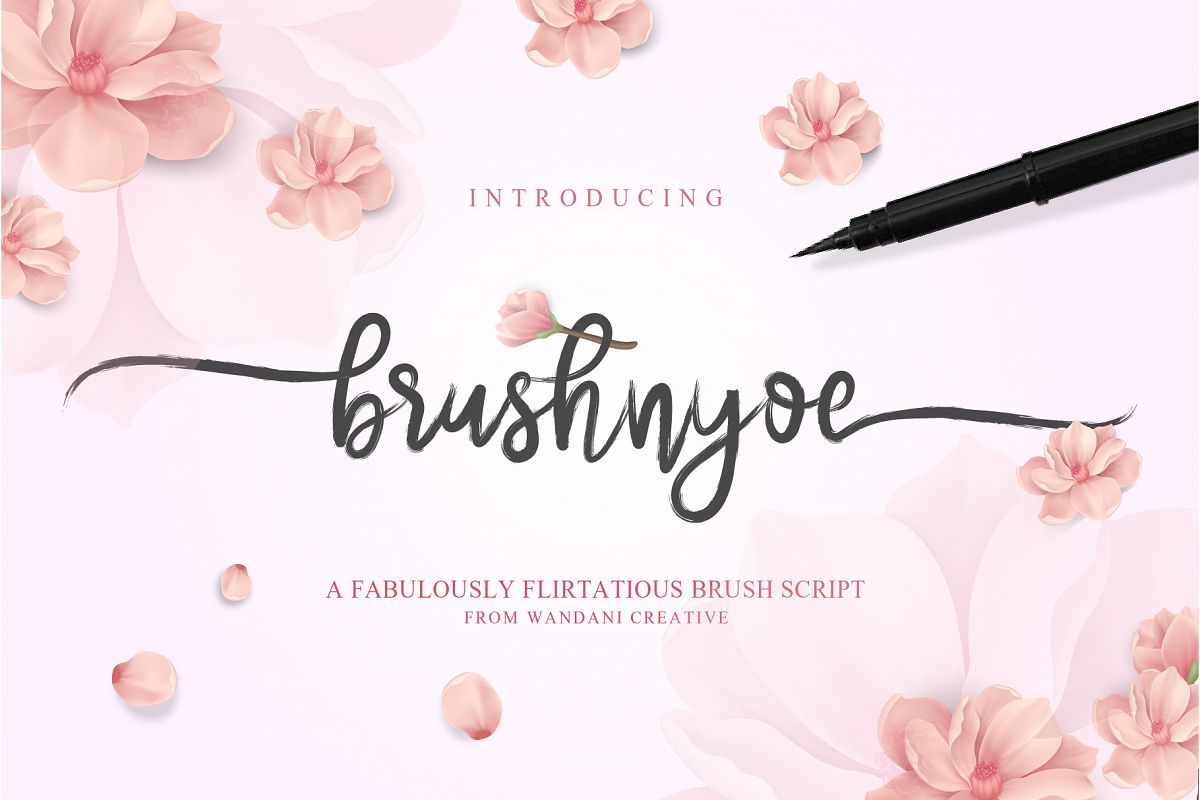
Brushnyoe
Brushnyoe is a must-have font that is beautiful and suitable for all types of designs. It's perfect for greeting cards, branding, stationery design, social media, packaging, magazine layout, prints, and more.